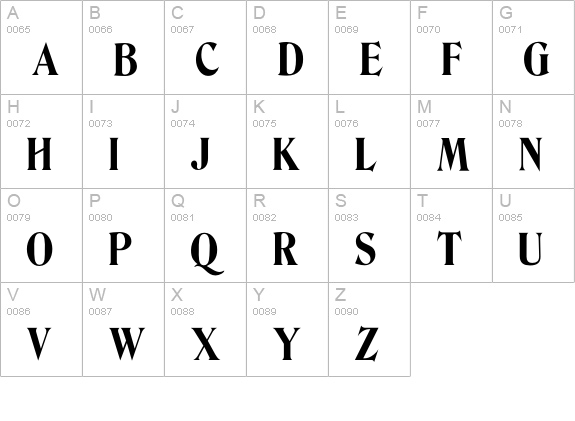
Introducing BernaseRoman, a beautiful and elegant font that exudes sophistication and charm. This timeless typeface boasts classic serifs and clean lines, making it perfect for a wide range of design projects. Whether you're creating invitations, branding materials, or editorial designs, BernaseRoman will bring a touch of class to your work. What's even better? BernaseRoman is available for free download at FontsMarket.com. That's right, you can elevate your designs with this stunning font without spending a dime. Don't miss out on the opportunity to add BernaseRoman to your font collection today and take your projects to the next level.